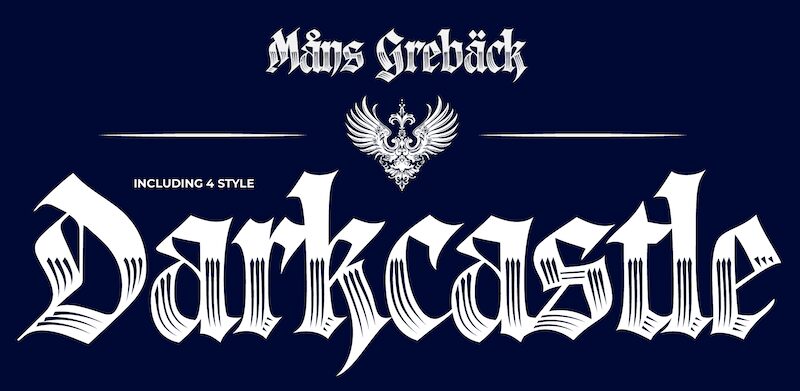
Darkcastle PERSONAL USE Regular
Darkcastle font by Mans Greback is a condensed modern blackletter typeface that captures a gothic aesthetic. Known for its dramatic letterforms, this font embodies a strong medieval essence with sharp decorative lines, giving it an ornate and historic vibe. Darkcastle has an intricate detailing that influences its impressive and powerful effect in any design project. Download for free to enjoy creating dark-themed posters or historical applications.
You’ll find Darkcastle suitable to decorate Halloween pamphlets and ideas, display titles of novels and books as well as long magazine texts, body copy of newspapers, educational documents, animated children’s stories, detective articles or publications. Various signage projects can also benefit from taking advantage of this professional typeface.